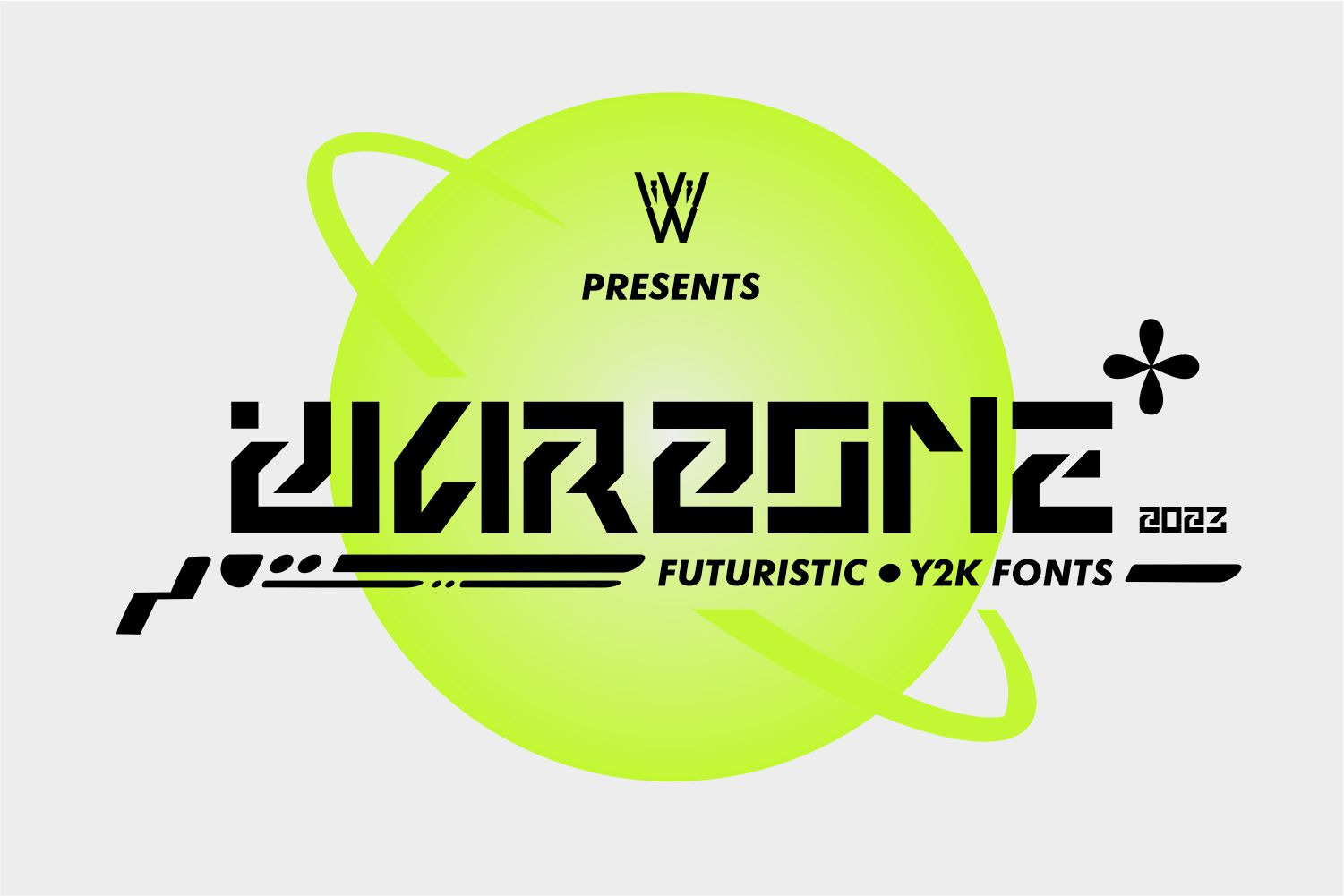
Warzone Bold Y2k Font
The Warzone Font is a captivating blend of Y2K aesthetics and futuristic elements, capturing the essence of the turn of the millennium with its bold and dynamic design. Inspired by the digital revolution of the late 20th century, this font features sharp angles, vibrant colors, and futuristic motifs that evoke a sense of technological innovation and cyber culture. Whether you’re designing for throwback projects, gaming interfaces, or nostalgic branding, the Warzone Font adds a touch of Y2K charm that captivates the viewer. Its bold and expressive style makes it perfect for projects aiming to evoke the spirit of the turn of the millennium.